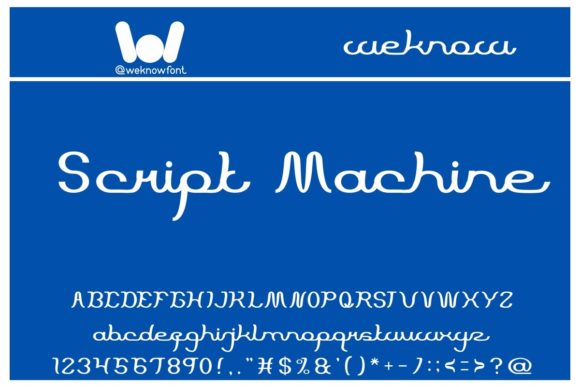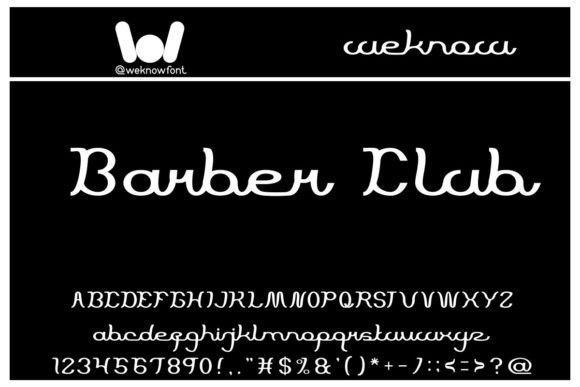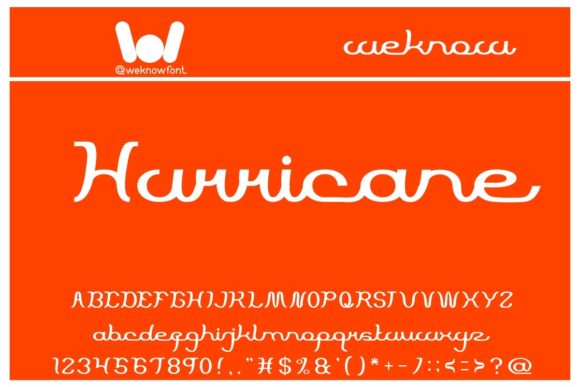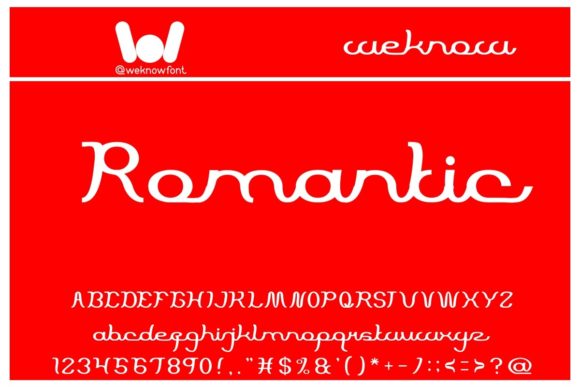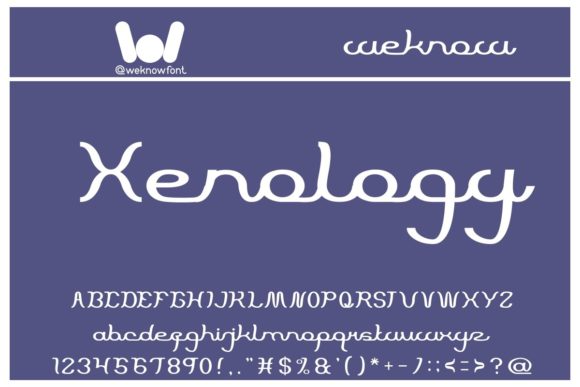
Script Machine Font
About Script Machine Font
Script Machine is a sleek and stylish font that exudes chic sophistication. Its smooth and flowing letterforms make it a versatile choice that can elevate a wide range of design projects. Whether you’re working on logos, headlines, posters, or digital content for various platforms like social media, YouTube, or your website, Script Machine has the flexibility to enhance your creative vision.
This font’s contemporary and elegant style makes it an excellent choice for a variety of applications. Its clean lines and balanced design lend a sense of professionalism and visual appeal to any project. Whether you’re designing for a music event, movie promotion, game interface, magazine layout, book cover, comic strip, or even a cartoon, Script Machine’s chic aesthetics can seamlessly integrate with your design and add a touch of sophistication.
With its smooth curves and graceful strokes, Script Machine brings a sense of fluidity to your text, making it a captivating choice for conveying your message or branding. Its versatility ensures that it works well for both digital and print materials, allowing you to create a cohesive and polished look across different mediums.
As you work on your creative design projects, consider the stylish and chic appeal of Script Machine to enhance the visual impact and create a memorable impression on your audience.